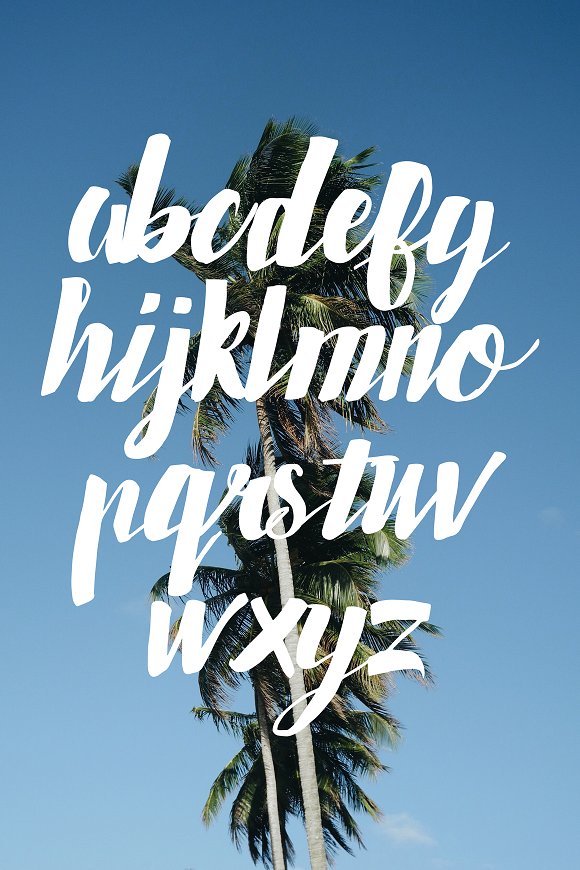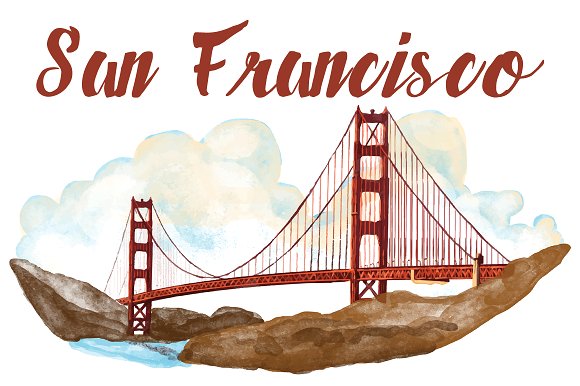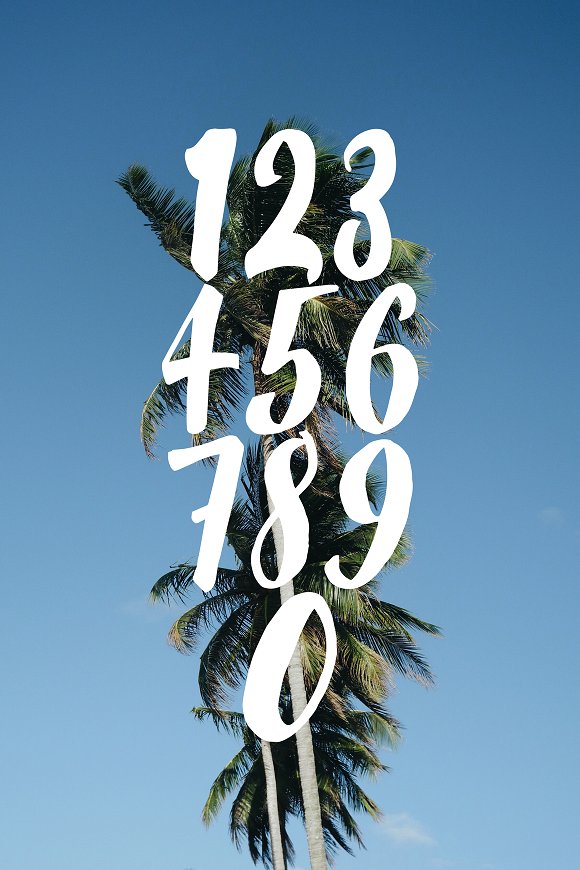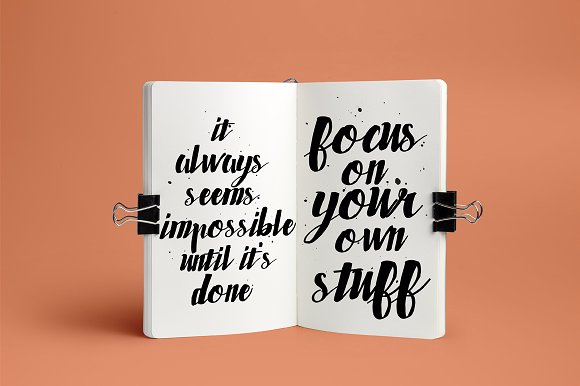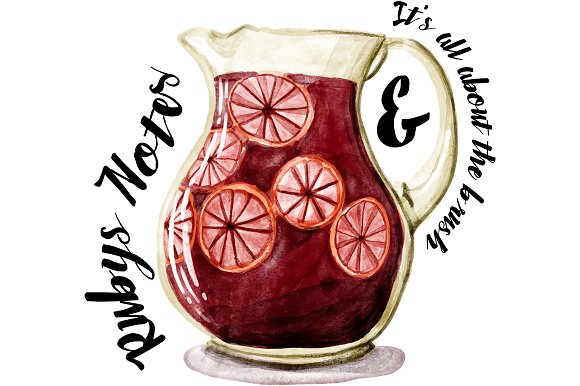
Ruby’s Notes, a hand brushed font
Introduction to Ruby’s Notes.
This sweet and tasty brushed font is for all to enjoy and use to make the best invitations to awesome logo designs, I hope everyone enjoys this font as much as I enjoyed it.